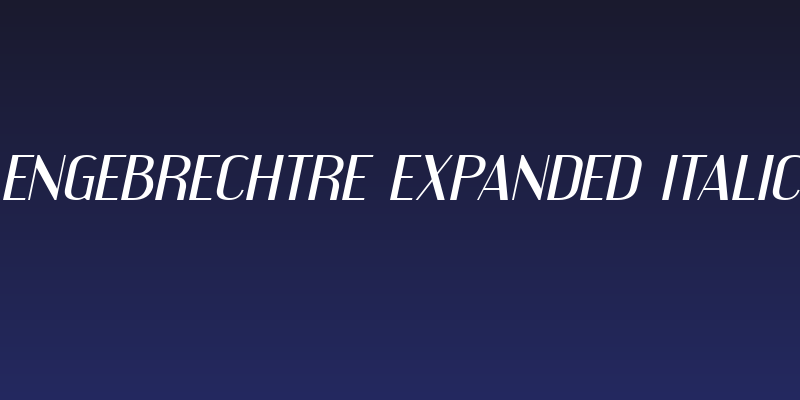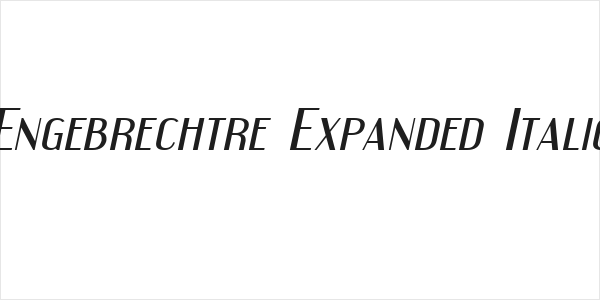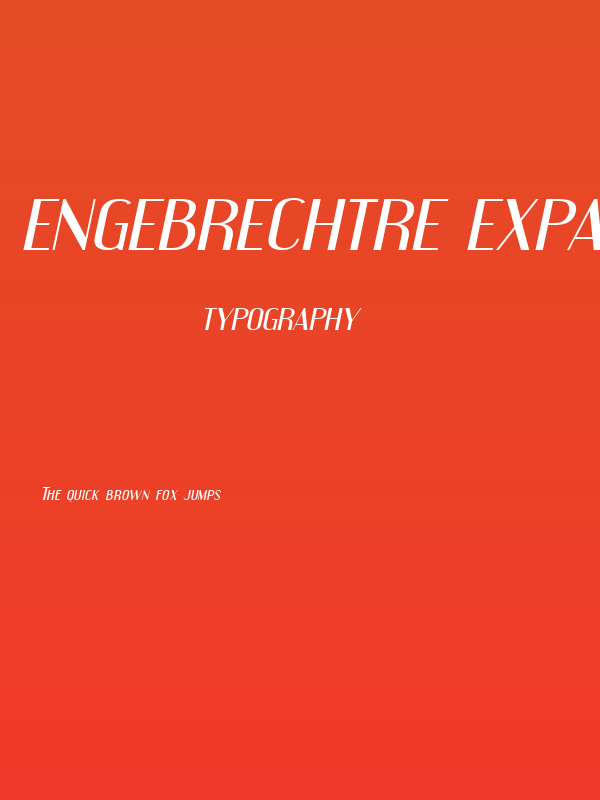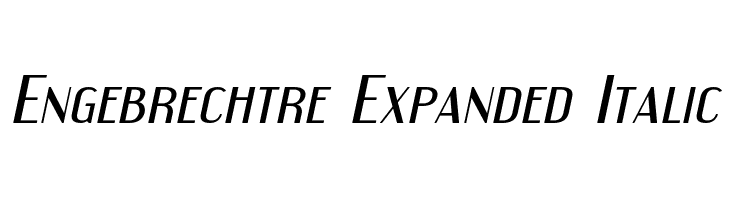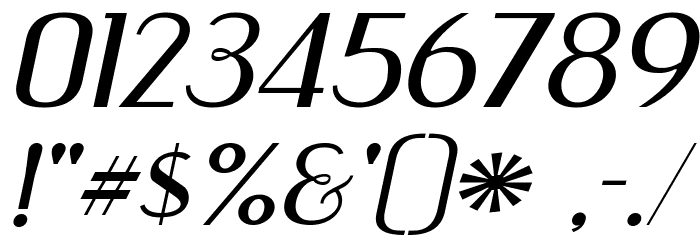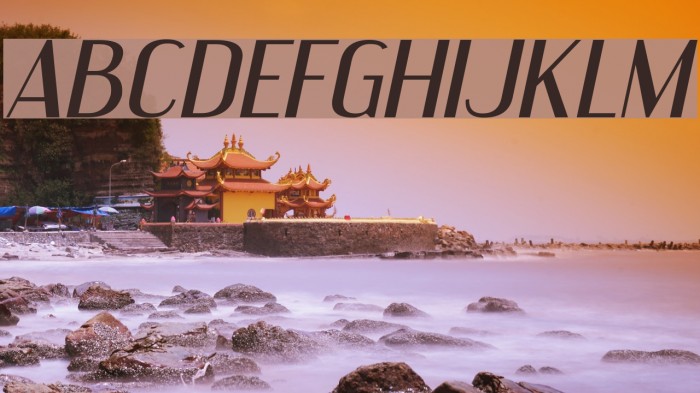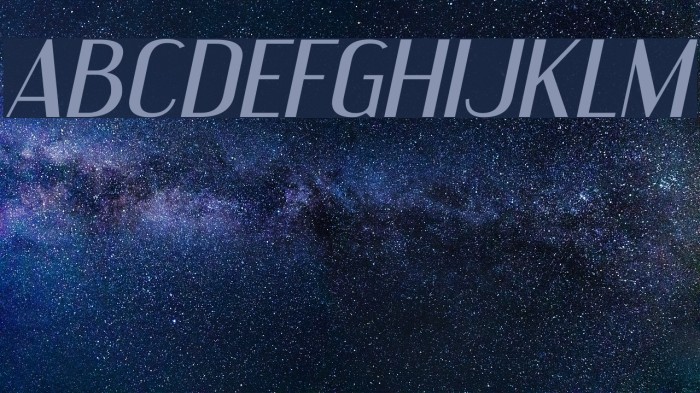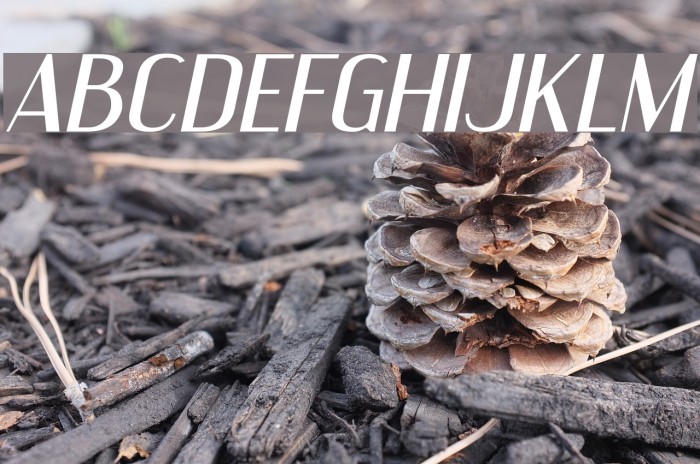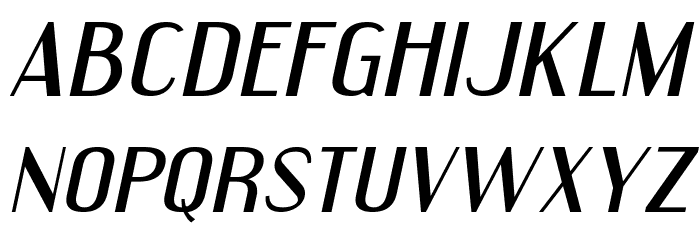
Engebrechtre Expanded Italic Font
Engebrechtre Expanded Italic Description
This font features a sleek, italicized style with elongated, expanded letterforms that convey a sense of motion and elegance. The characters are slightly slanted, enhancing the dynamic appearance. The strokes are consistent in thickness, providing a uniform look across all characters. The numerals and special characters maintain the same stylistic features, ensuring cohesion throughout. This typeface is well-suited for modern applications where a touch of sophistication and flair is desired. The spacing between characters is balanced, allowing for readability while maintaining the aesthetic appeal.
| Proposed Projects | Ideal for branding, fashion magazines, modern advertisements, and dynamic web design. |